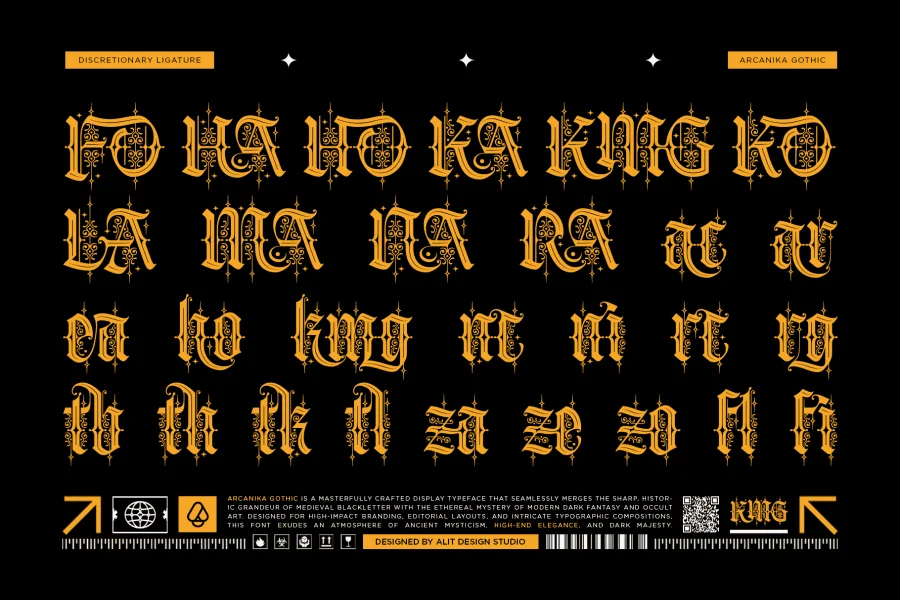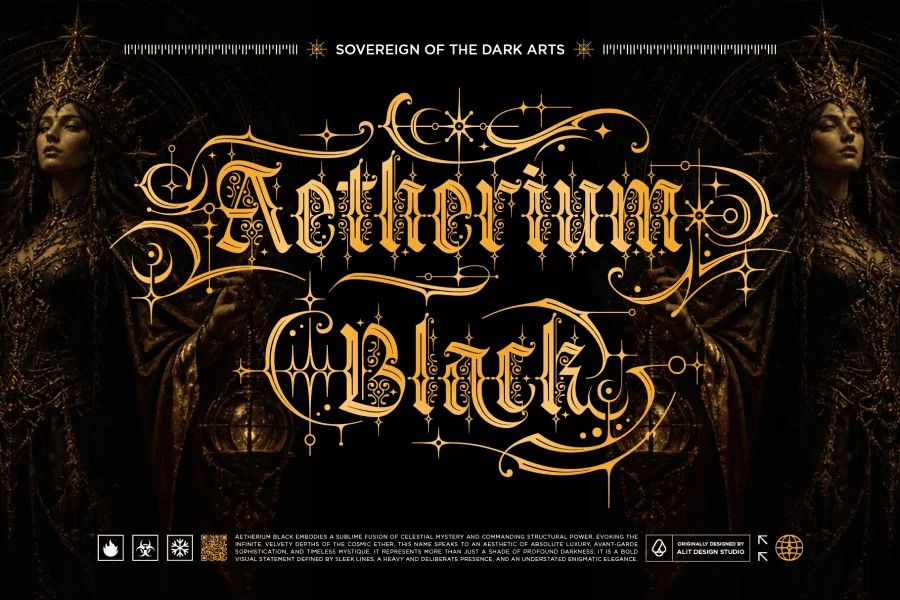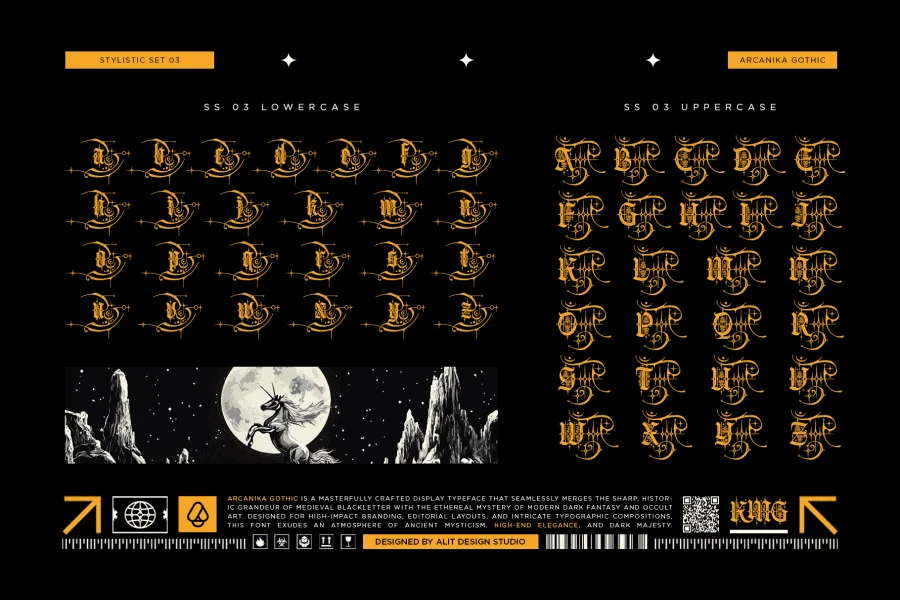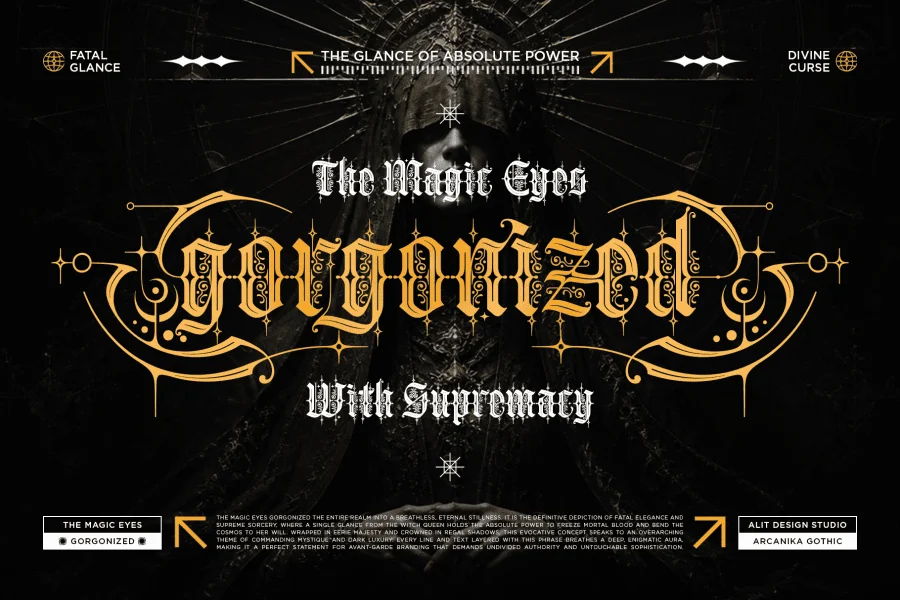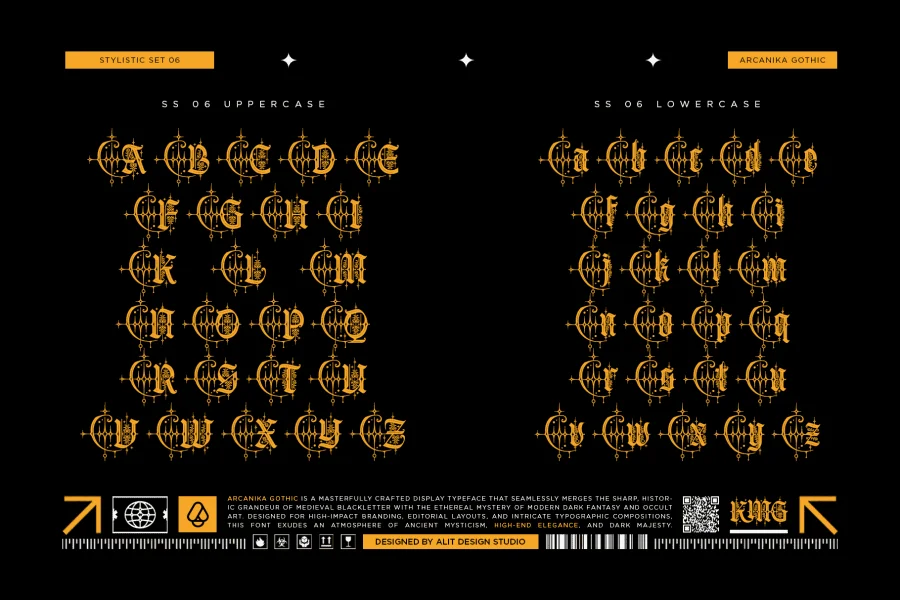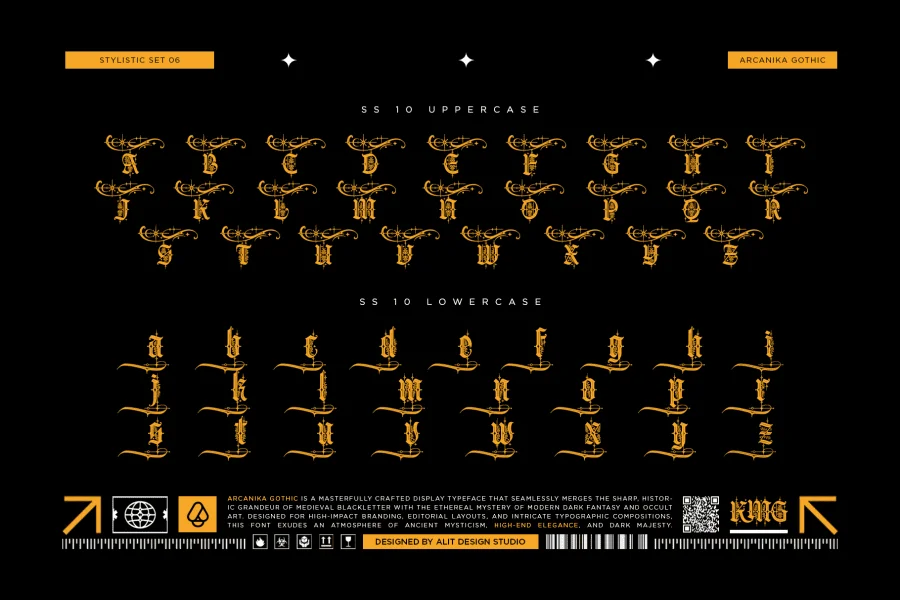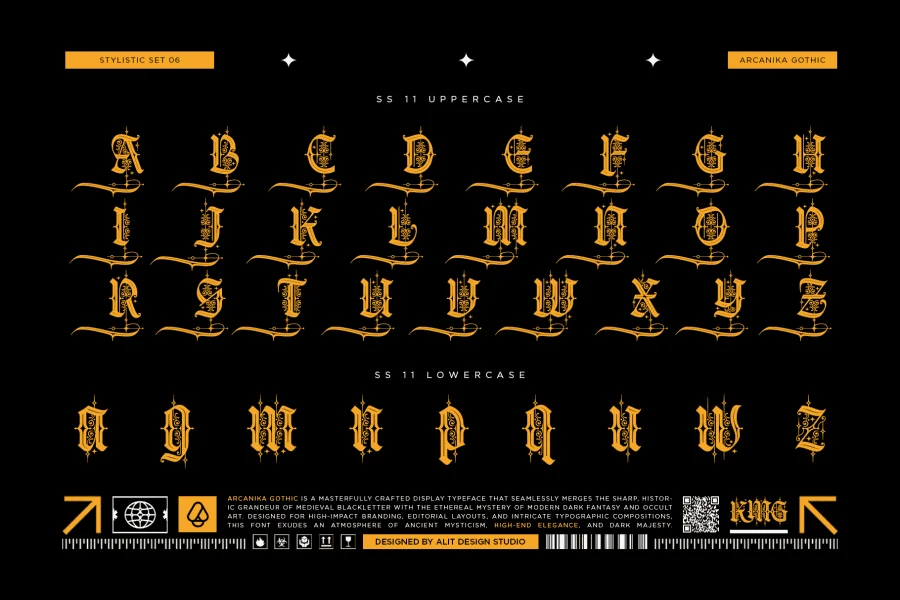
Introducing Arcanika Gothic, a masterfully crafted display typeface that seamlessly merges the sharp, historic grandeur of medieval blackletter with the ethereal mystery of modern dark fantasy and occult art. Exuding an atmosphere of ancient mysticism, high-end elegance, and dark majesty, this font is designed to make a commanding visual statement.
Arcanika Gothic is an ornate, esoteric display font that breathes dark elegance into modern typography. Featuring razor-sharp blackletter structures, intricate interior scrollwork, and theatrical, sweeping swashes, it is the ultimate typeface for luxury branding, striking editorial layouts, and intricate typographic compositions. Whether you are designing avant-garde streetwear apparel, bold posters, or enchanting book covers, Arcanika Gothic delivers absolute luxury and timeless mystique.